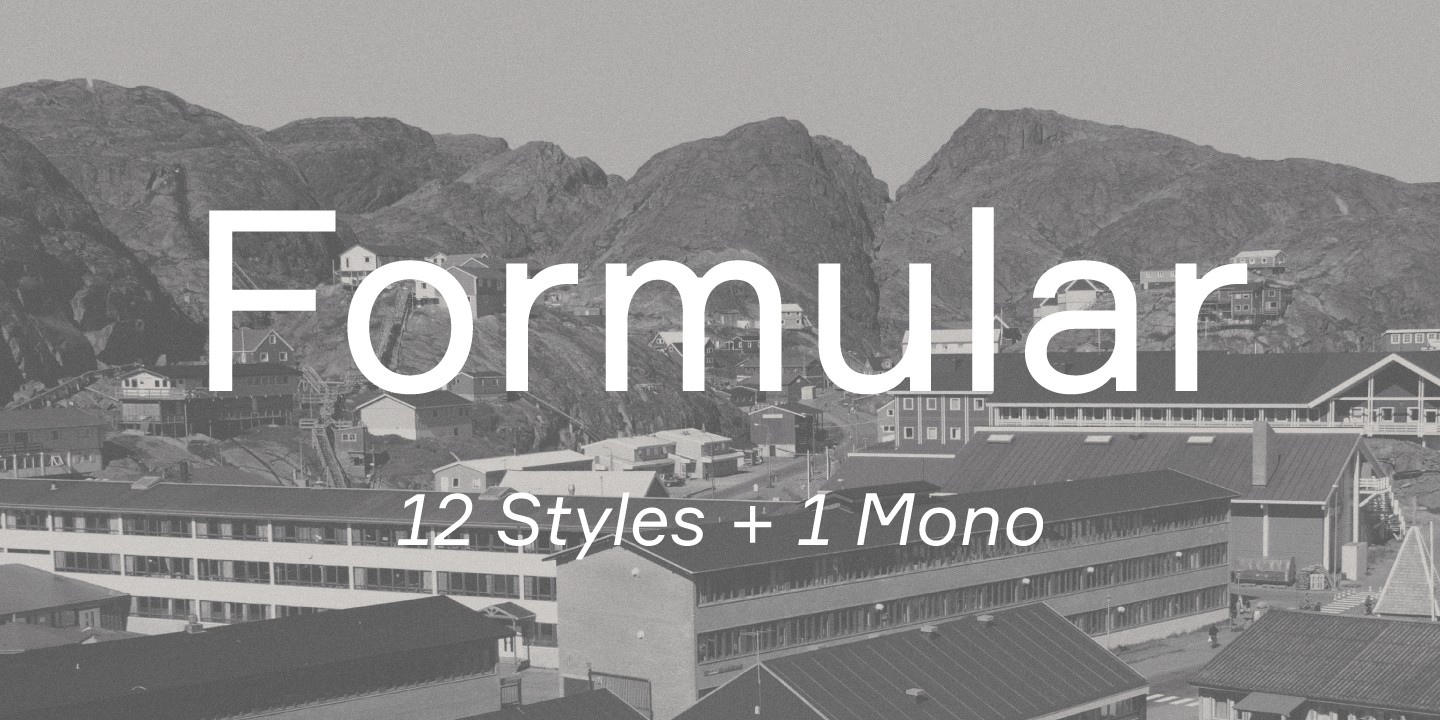
Formular Font
Formular Font is perfect for various design applications including racing team branding, automotive industry communications, motorsport event promotions, high-performance vehicle packaging, speed-focused engineering presentations, racing circuit signage, automotive parts labeling, precision motorsport merchandise, racing championship graphics, and high-velocity brand identities. This dynamic typeface excels in projects requiring racing precision and automotive excellence that captures the speed, engineering sophistication, and competitive spirit of professional motorsport and high-performance automotive culture.
What makes Formular Font so exciting is its precise embodiment of racing excellence and automotive engineering through letterforms that suggest aerodynamic efficiency and the mathematical precision required for competitive motorsport performance. The font features streamlined construction that mirrors race car aerodynamics, optimized proportions that communicate speed and engineering precision, and distinctive character details that reflect the technical sophistication and performance optimization that defines professional racing. Its distinctive racing character and automotive appeal make it perfect for motorsport brands seeking to communicate speed, precision, and the cutting-edge technology that drives racing excellence and automotive innovation.
Formular Font family includes multiple speed-inspired weights and racing variations that enhance its versatility for different automotive applications. Each style maintains the font's signature racing character while providing options for various motorsport design approaches. The family also features racing-themed decorative elements, automotive symbols, and speed-inspired ornaments that can be combined with the letterforms to create cohesive motorsport design systems.
Formular Font stands out by delivering authentic racing authenticity that feels connected to real motorsport traditions rather than superficial speed theming. Its carefully engineered racing proportions and automotive details ensure that designs feel genuinely connected to professional racing heritage and high-performance automotive culture. From racing team branding to automotive industry communications, this font provides designers with tools to create communications that celebrate racing excellence and inspire appreciation for automotive precision through streamlined, performance-inspired typography that crosses the finish line first every time.